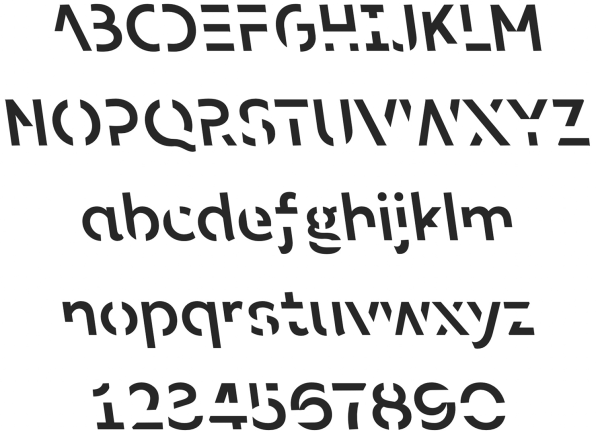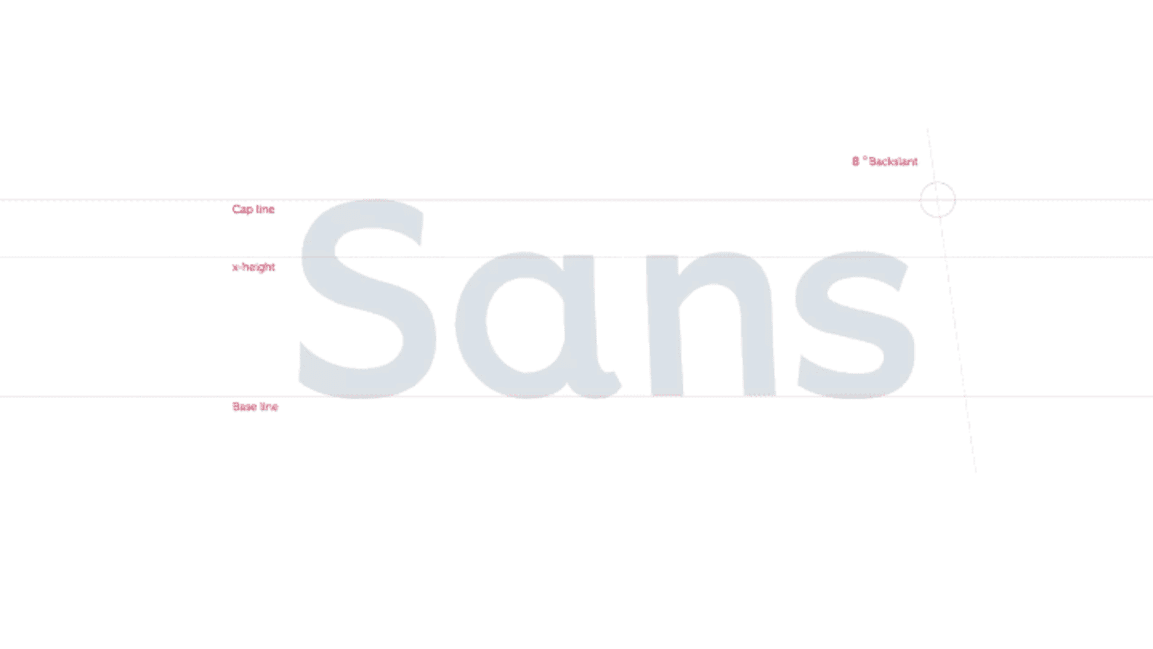
How many times have you typed notes in a meeting or classroom, only to forget everything the minute you walked out the door? And could something as simple as a typeface solve the problem?
A team of researchers at the RMIT Behavioral Business Lab in Melbourne, Australia, have developed Sans Forgetica, a typeface design that draws on the principles of cognitive science to help users better remember their notes.
Sans Forgetica makes use of the Gestalt law of closure, which happens when an object appears incomplete at first sight. The brain, knowing that there are missing parts, attempts to complete the image, closing the negative space or adding nonexistent parts. You can see how this works in the panda of the WWF logo:
In the case of Sans Forgetica, letters’ shapes are left incomplete on purpose, making them barely recognizable at first sight. But enough is left of them for the brain to perform its recognition task. In effect, the brain has to go into overdrive to complete the letters. This results in what the RMIT scientists call a “desirable difficulty,” pushing the brain to engage more and go deeper into the cognitive process.
According to the researchers, the entire cognitive process leads to improved memory retention: Since your brain has to work harder to recognize the words, they claim, the extra energy will result in an a deeper assimilation of what you decode, burning it in your brain.
The designers have not published any scientific test to back up their claims, so take this with a grain of salt. But RMIT lecturer and typographer Stephen Banham talks here about how he worked with the public university’s Behavioral Business Lab to “test and refine the typeface to obtain an optimal level of desirable difficulty.” That is: Something not too hard to decode as to slow your learning process down, but not so easy that you forget everything.